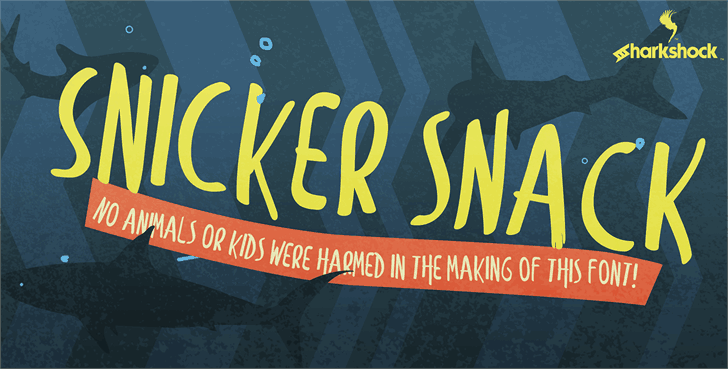
Snicker Snack Font
Snicker Snack Font is a logo font it definitely is certainly situated on a tv sitcom. One of the great fonts available.
For the number one time, it became launched best within the united states of America just like lethal slime font . However in some time, after searching out the majority response the sitcom employer has decided to free upon worldwide.
It has an entire 8 amount of family together with 192 extensive forms of fonts. And lots of peoples all over the worldwide has appeared it because of the truth the remarkable sitcom ever.
Style Of Snicker Snack Font Free
Therefore, we’re right here so as to font cherished ones that are generated after the usage of the idea of zapfino font and its character. Acknowledging a number of artists need to pictures the forward aspect that.
This not unusual kind have consisted of seventy-two numbers of characters together with uppercase, lowercase, and punctuation marks. Each and each type have their own first-rate appear as you could want to discover within the pix.